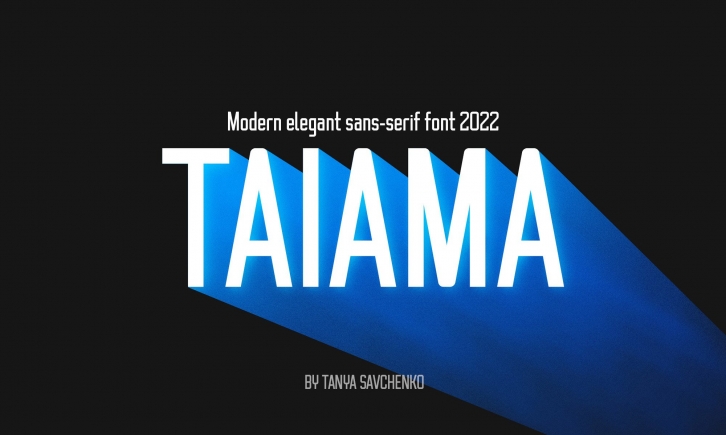
Taiama is a modern and elegant sans serif font characterized by simplicity and intelligibility. Even a large text looks stylish, modern, and most importantly, readable. Why not use this font for everything?